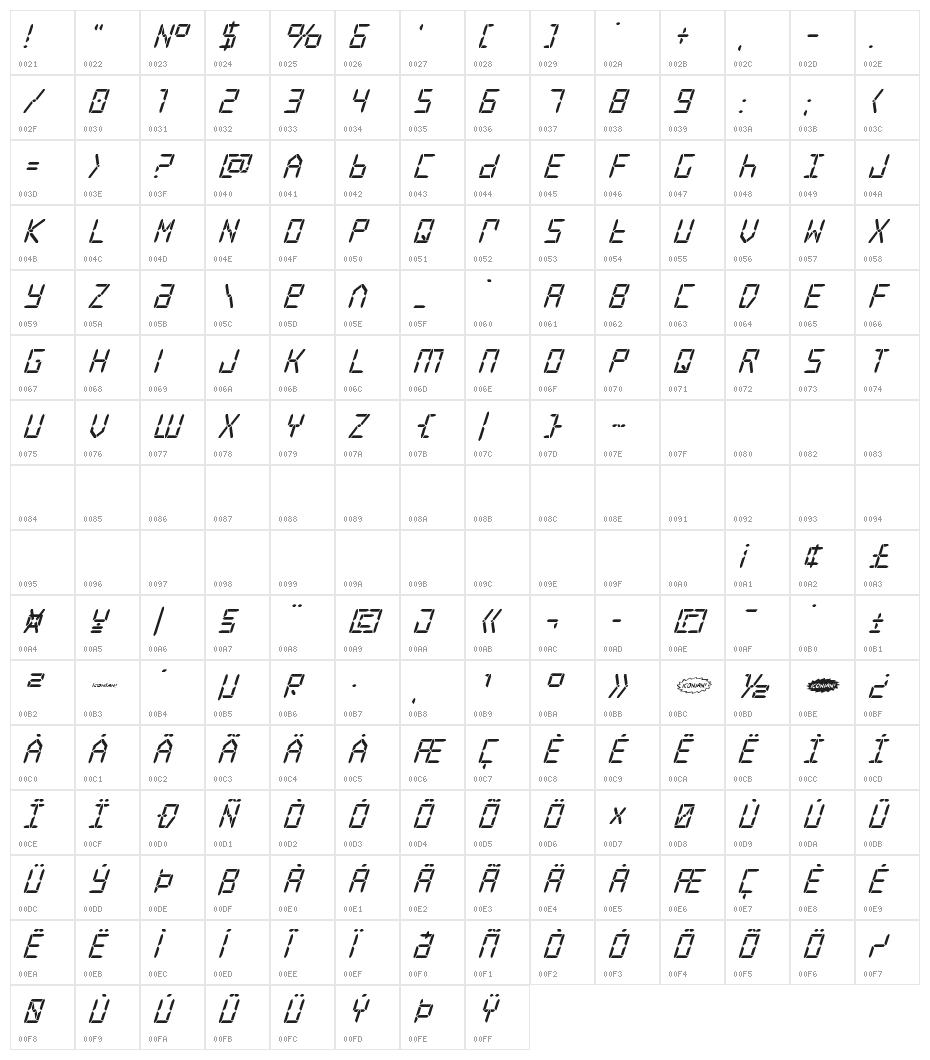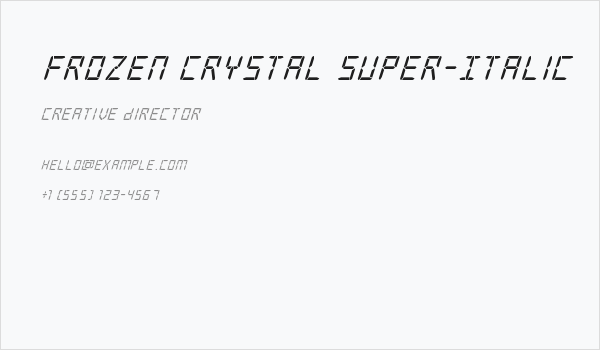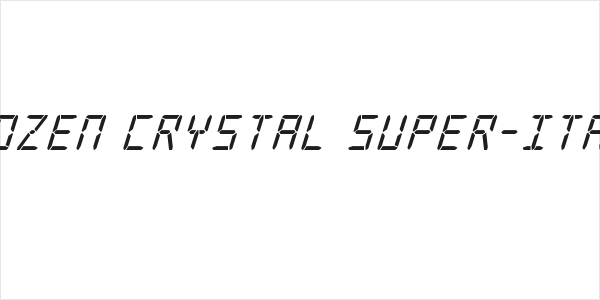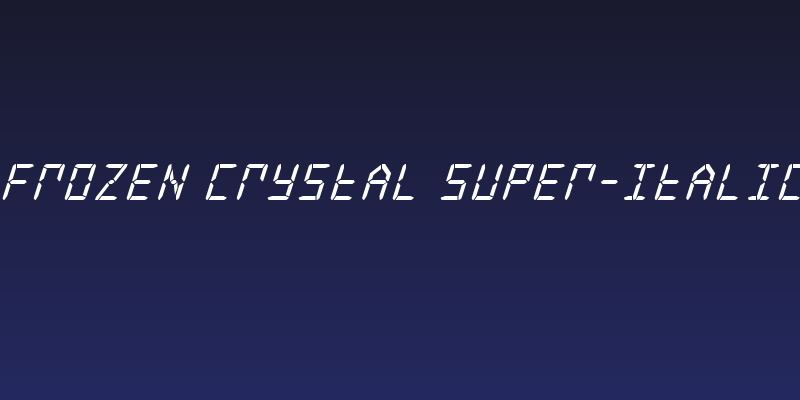
Frozen Crystal Super-Italic Font
Frozen Crystal Super-Italic Description
This font features a futuristic and angular design, characterized by sharp, geometric shapes that give it a digital or technological feel. The letters are italicized, adding a dynamic and forward-leaning appearance. Each character is composed of distinct segments, reminiscent of digital displays or crystal formations, which contribute to its modern and edgy aesthetic. The font maintains a consistent stroke width throughout, providing a uniform and cohesive look. Its unique style makes it stand out, suitable for projects that require a contemporary and innovative touch.
| Proposed Projects | Ideal for tech-related branding, digital interfaces, video game titles, and futuristic-themed posters. |